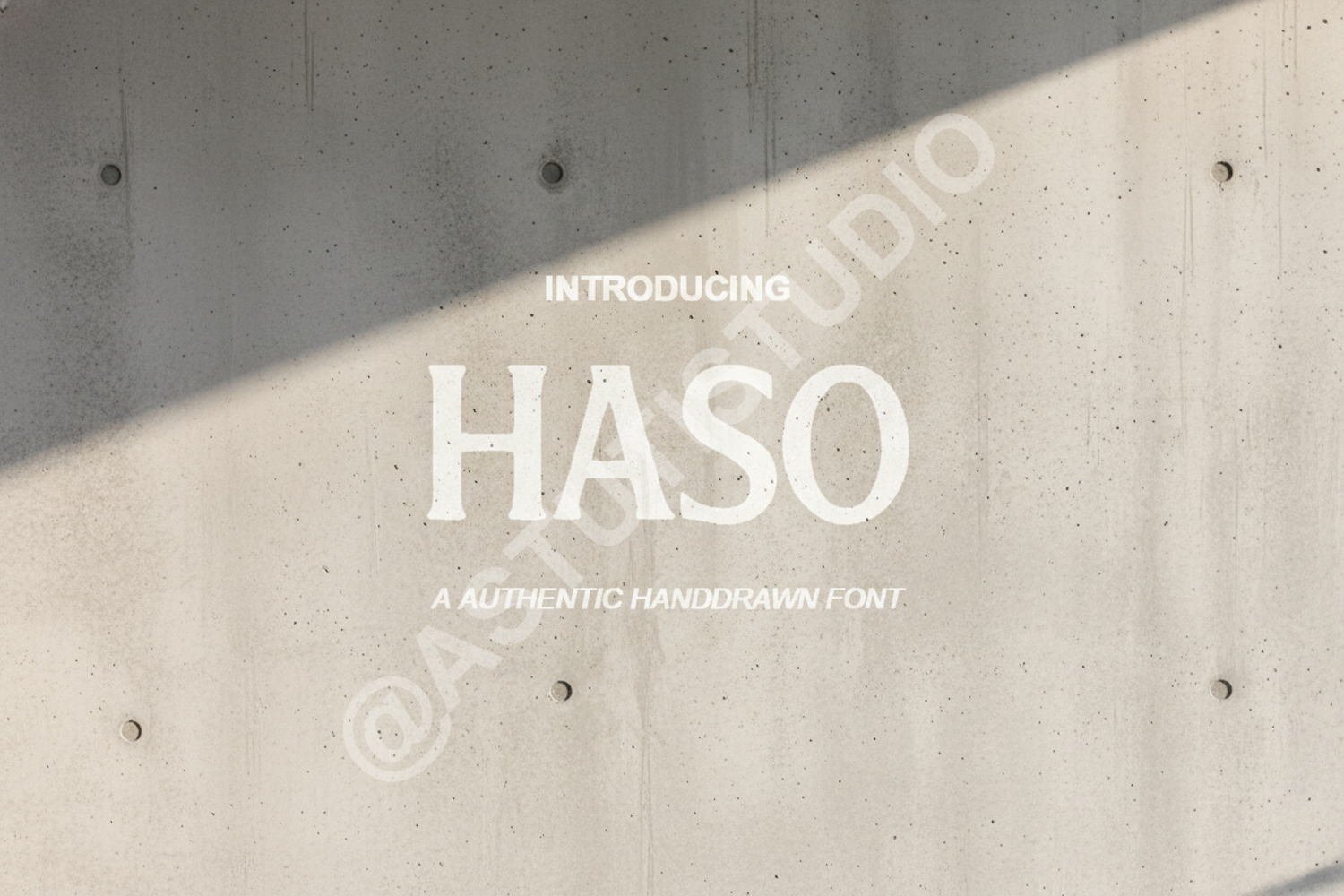
Haso - Elegant Modern Sans Serif Typeface
Haso
Haso is a premium modern sans serif font meticulously crafted to bring a touch of sophistication and clarity to your creative projects. With its clean lines and balanced proportions, Haso offers a timeless aesthetic that bridges the gap between contemporary minimalism and classic professional design. Whether you are building a brand from scratch or looking for the perfect headline font, Haso provides the versatility needed to make your work stand out.
- Full Character Set including Uppercase and Lowercase
- Numerals and Punctuation
- Branding and Visual Identity: Create memorable logos and corporate stationery.
- Editorial Design: Perfect for magazine layouts, book covers, and headers.
- Luxury Packaging: Elevate product designs with a high-end feel.
- Social Media: Design eye-catching quotes and promotional graphics.
- Web Design: Ensure readability and style across digital platforms.